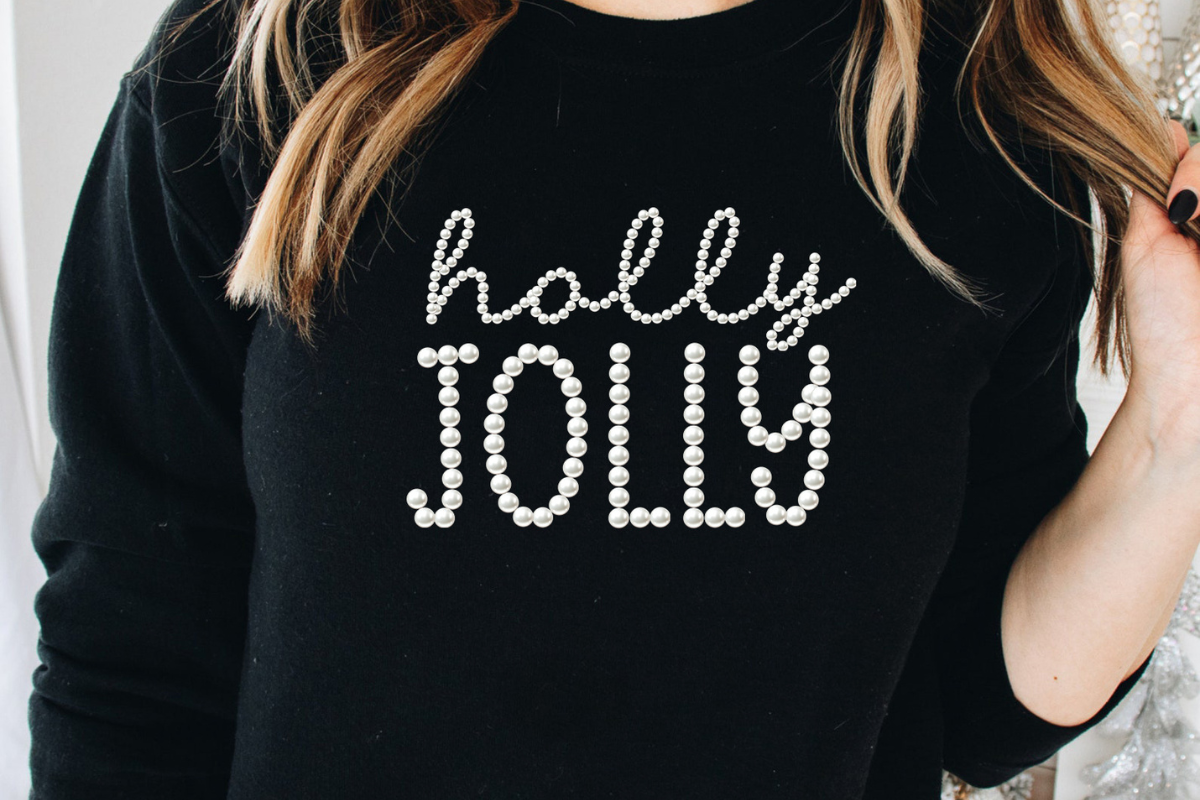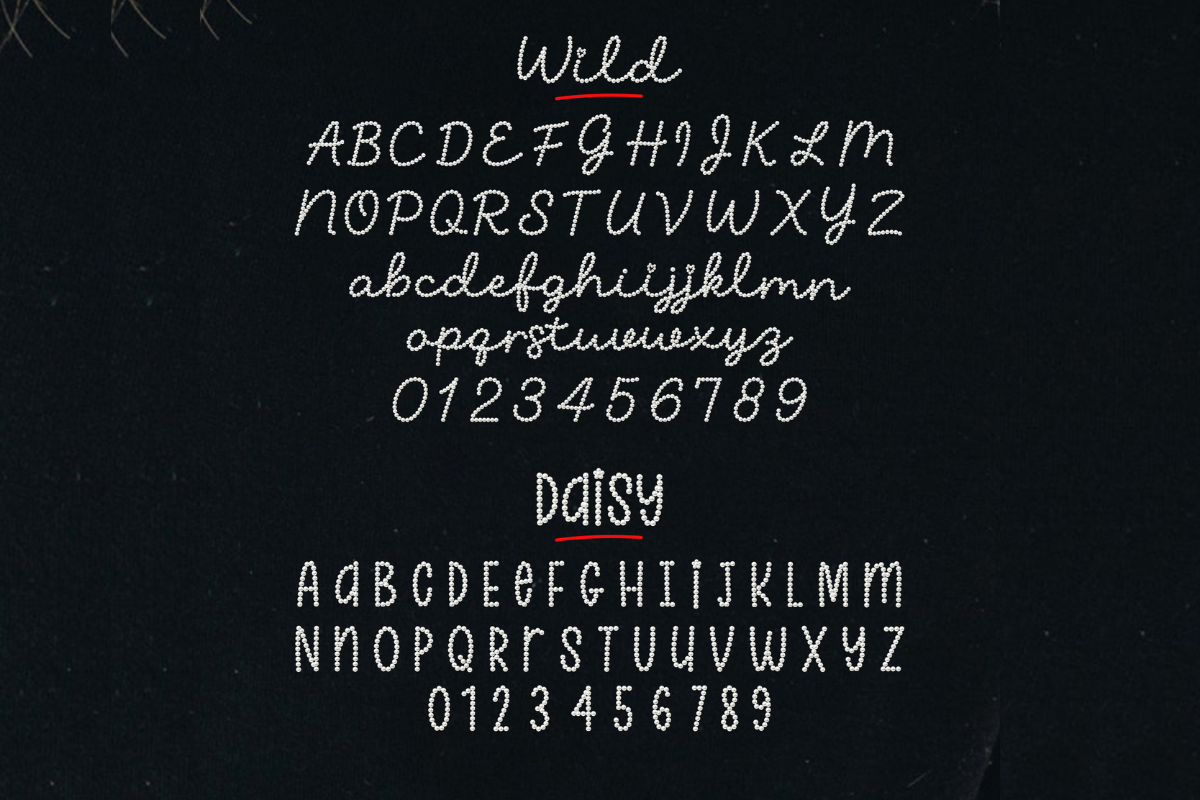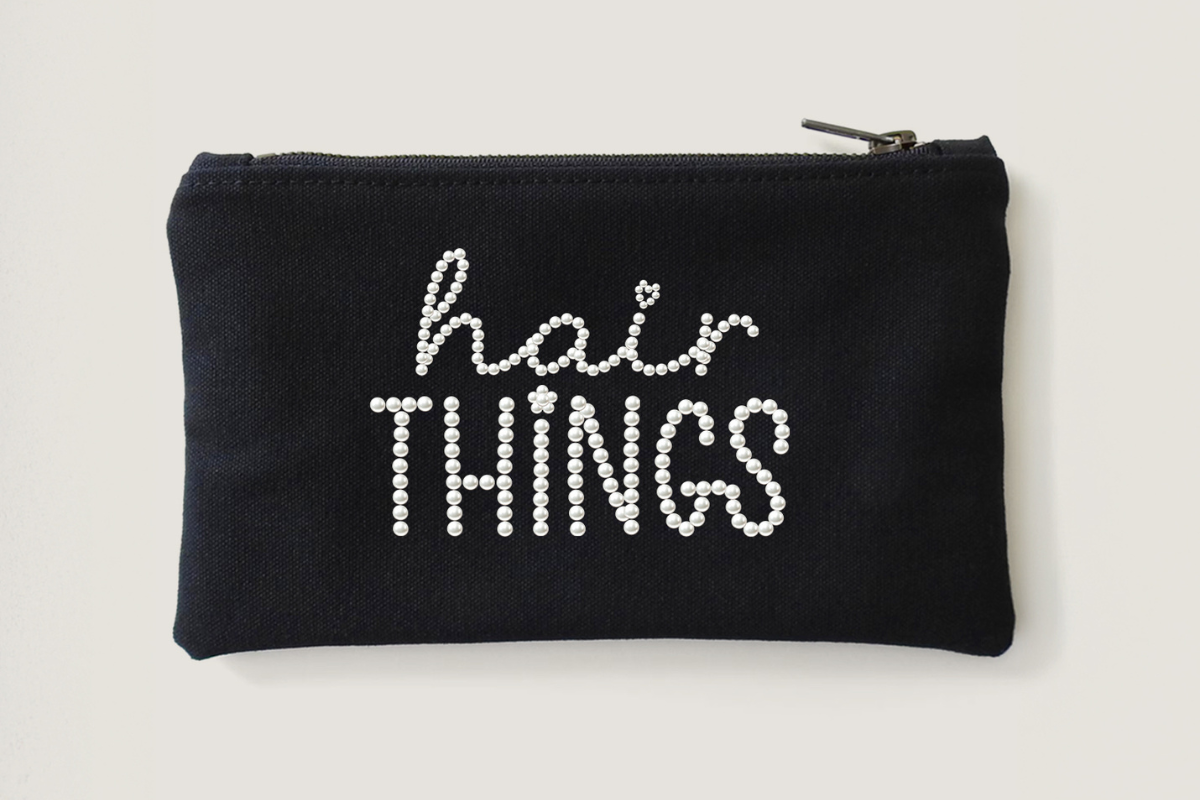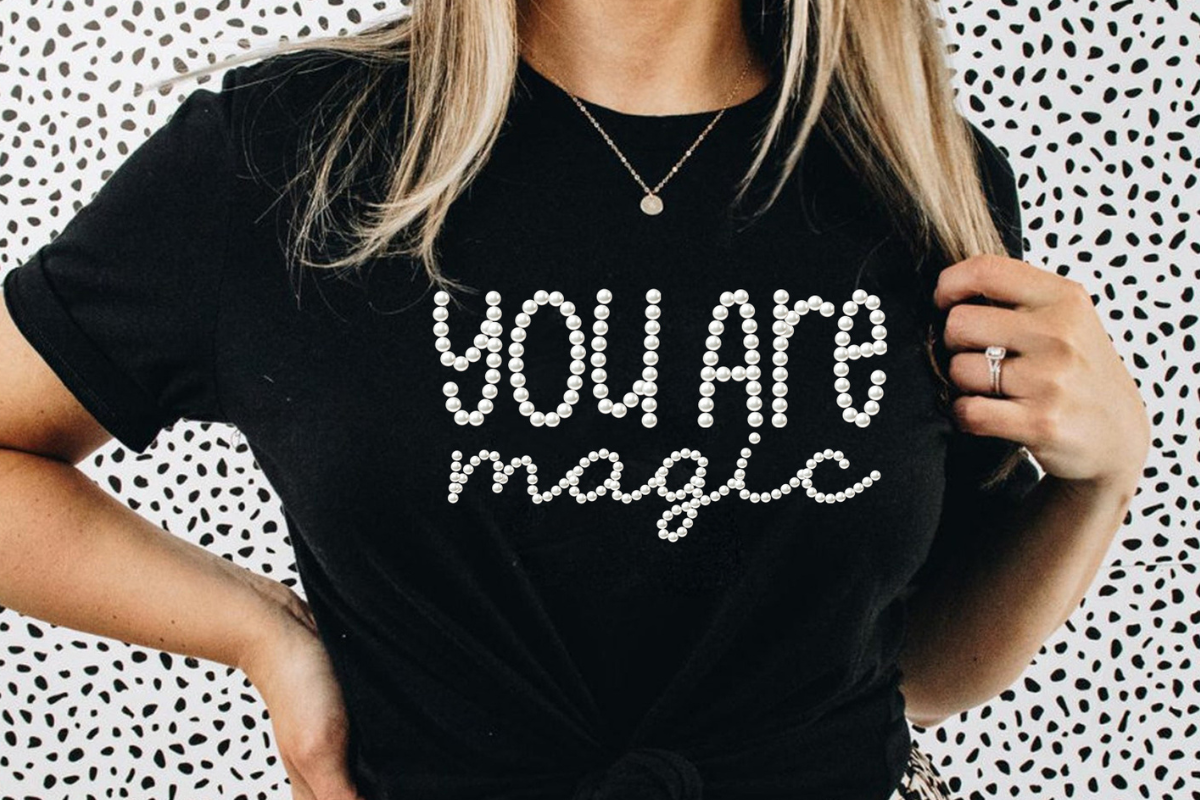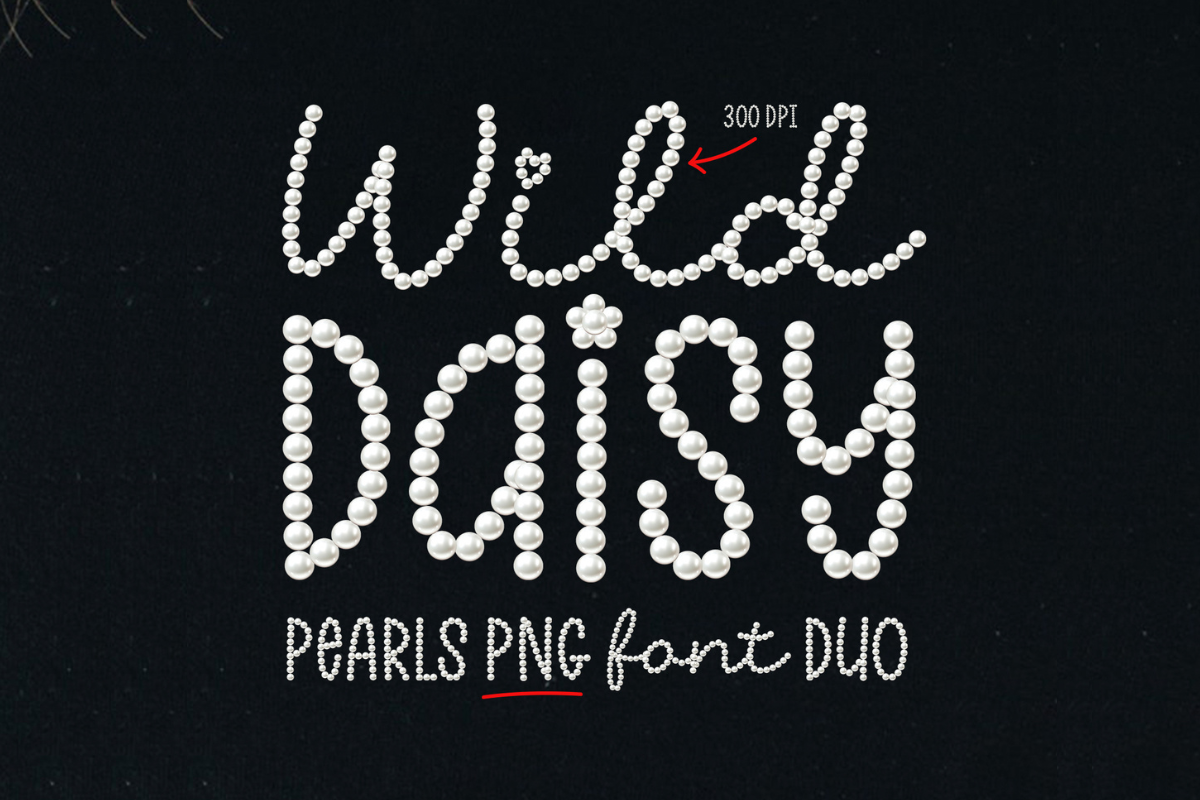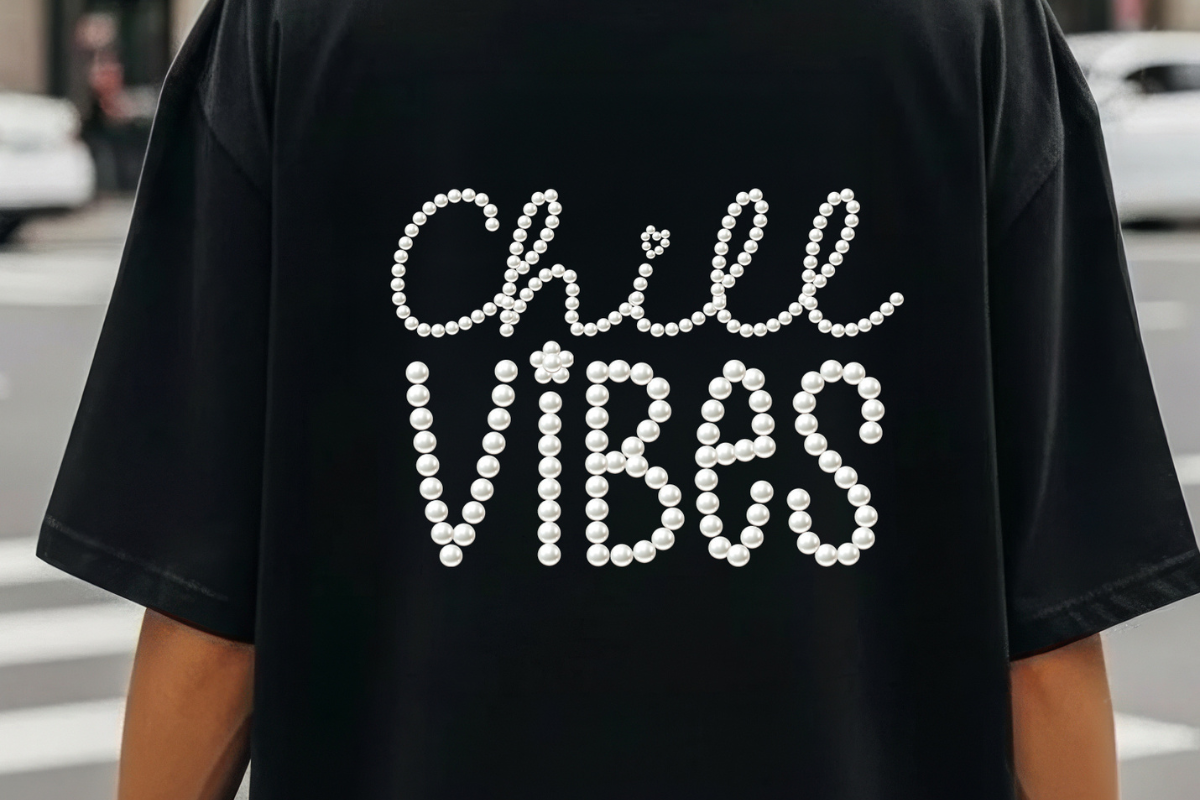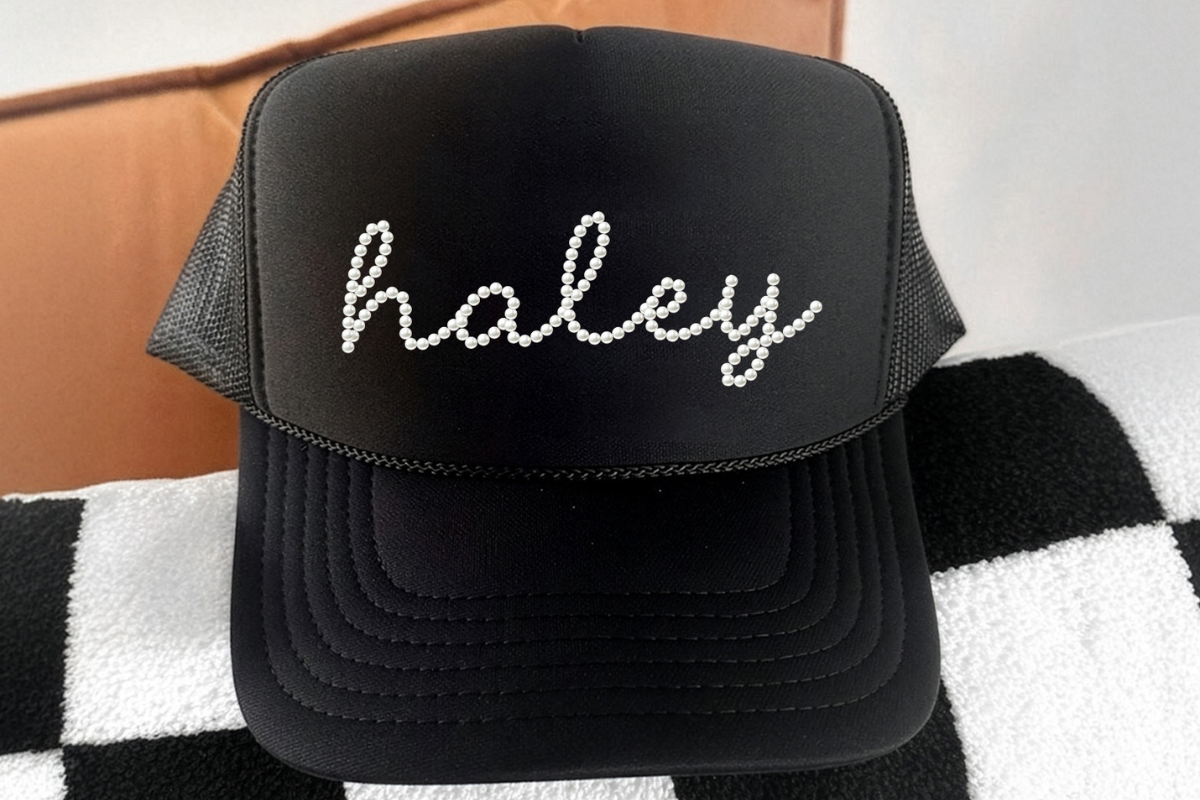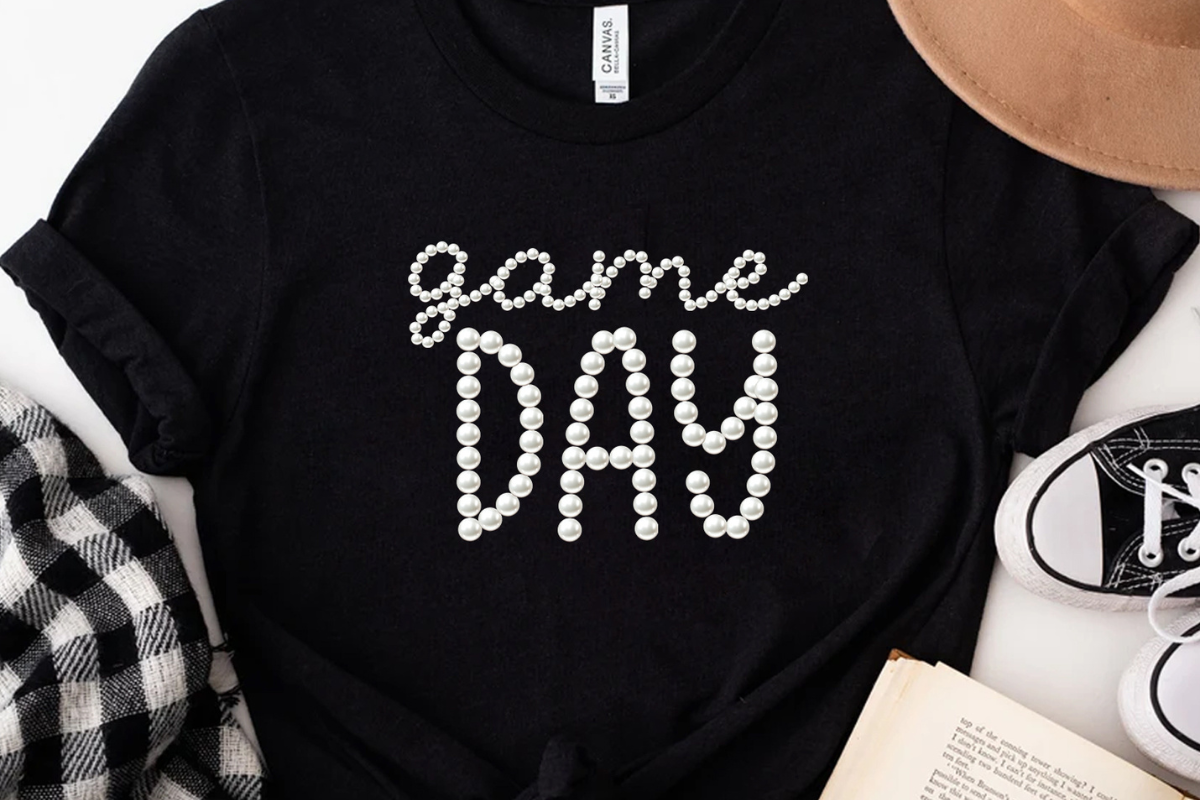
Pearl Script Font Duo PNG Alphabet
Pearl Beaded Script Font Duo PNG Alphabet Letters, Pearl PNG Letter, Pearls Font Alphabet, Cricut Font, Preppy Font, Pearl Font PNG, Pearl Bead Font, Pearl PNG, Wild Daisy Pearl Script Font Duo.